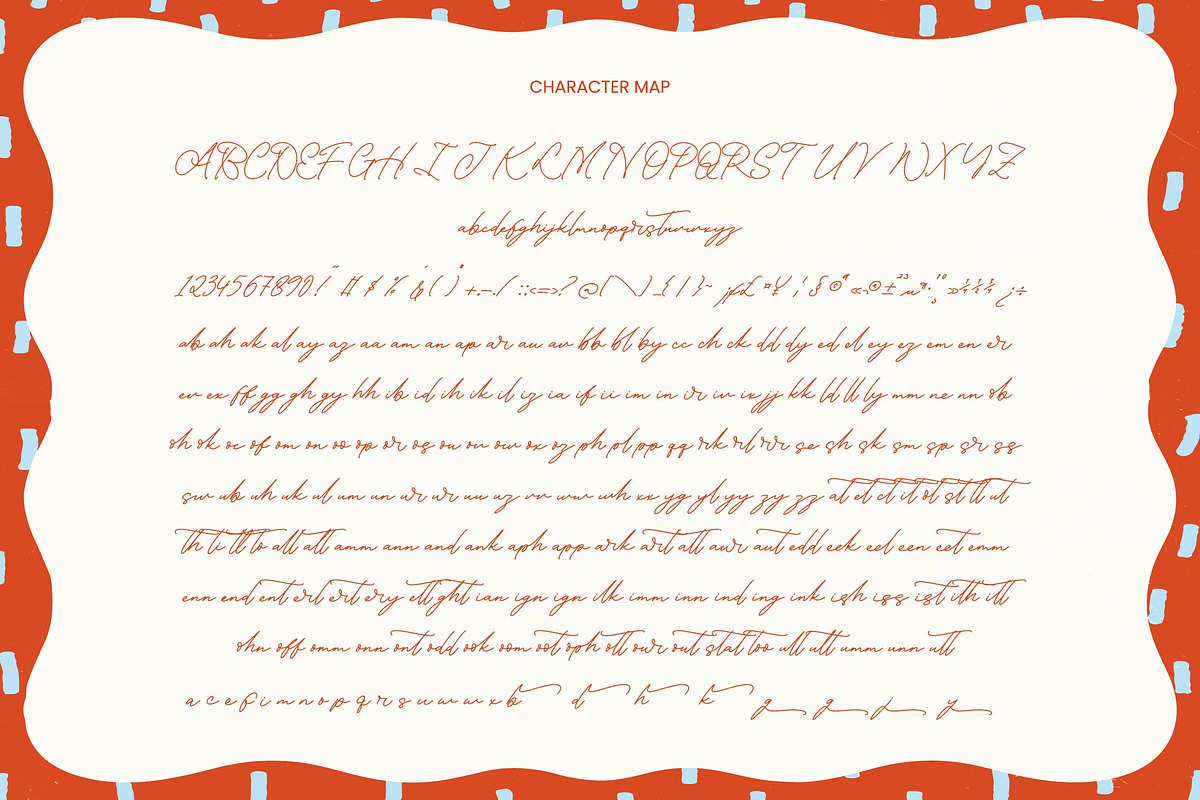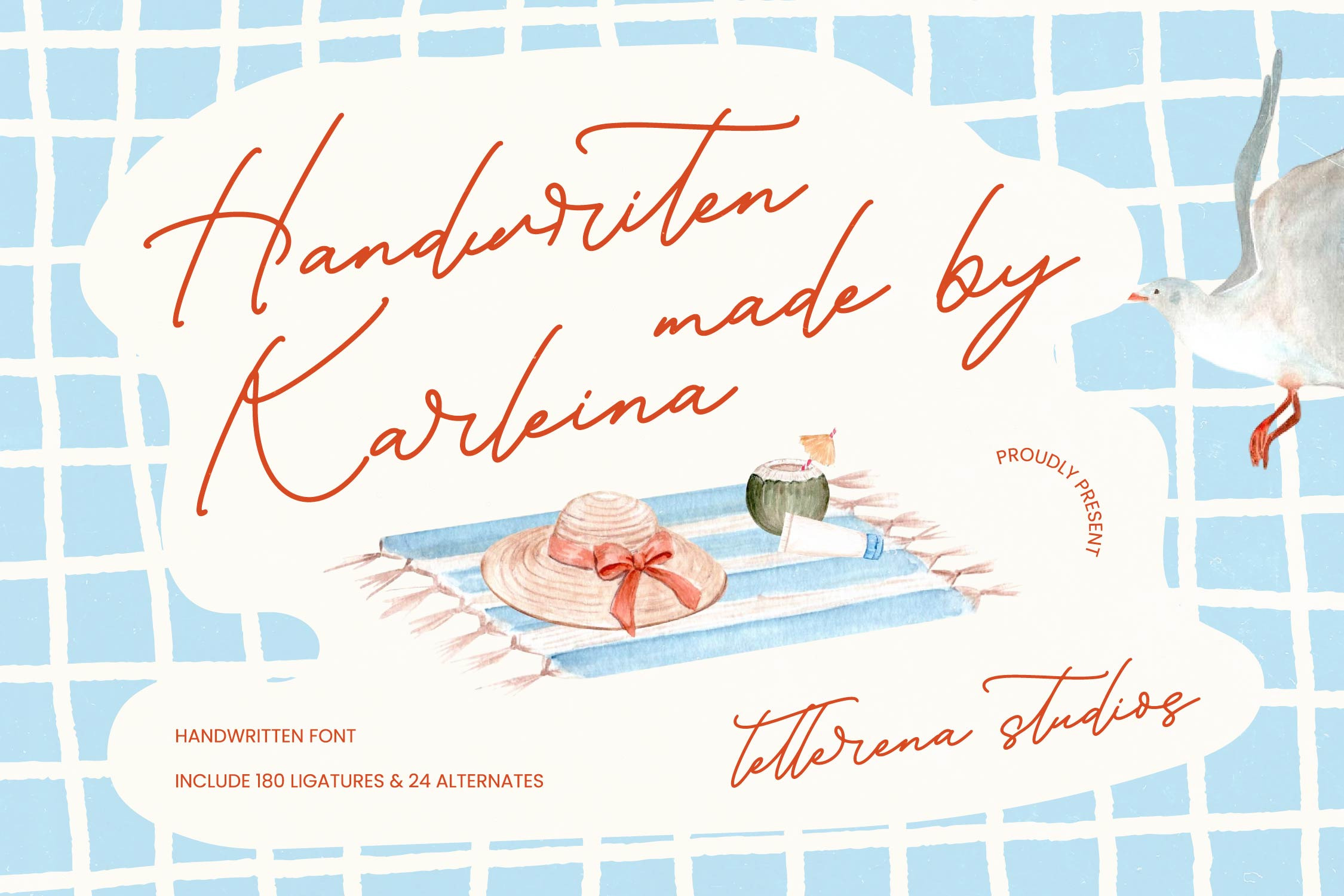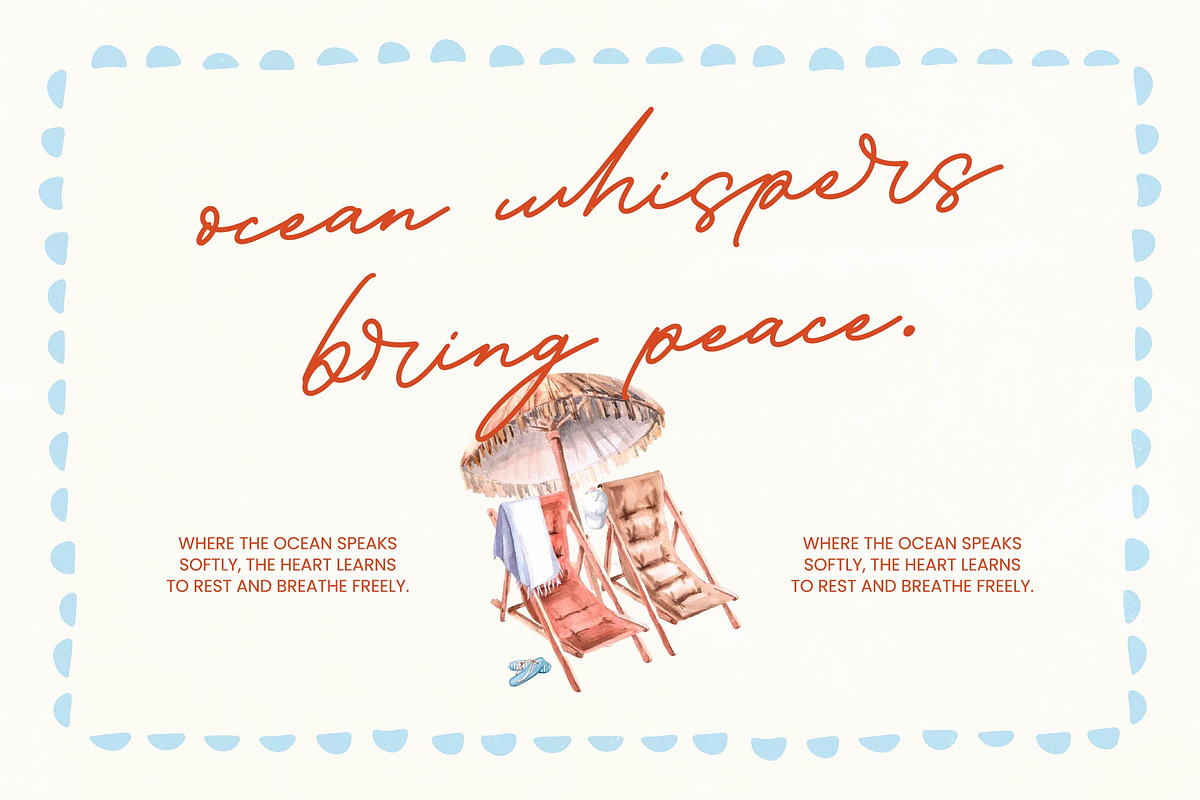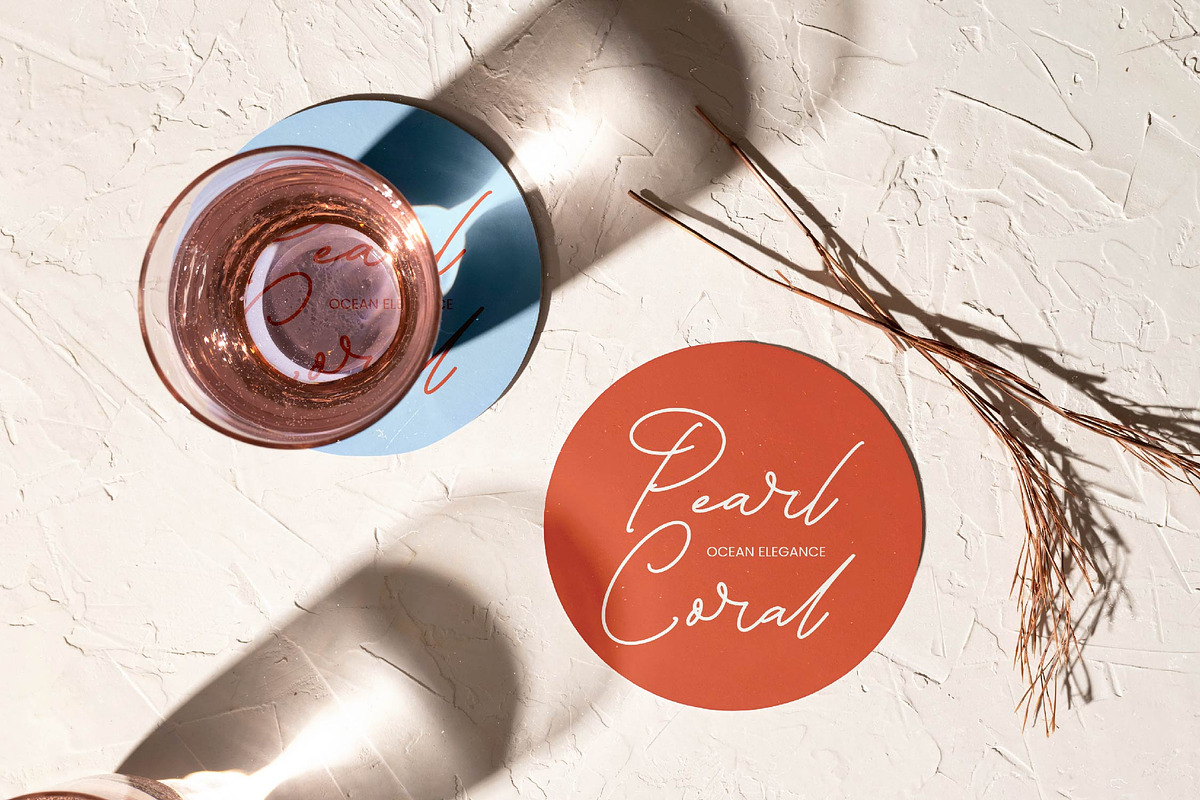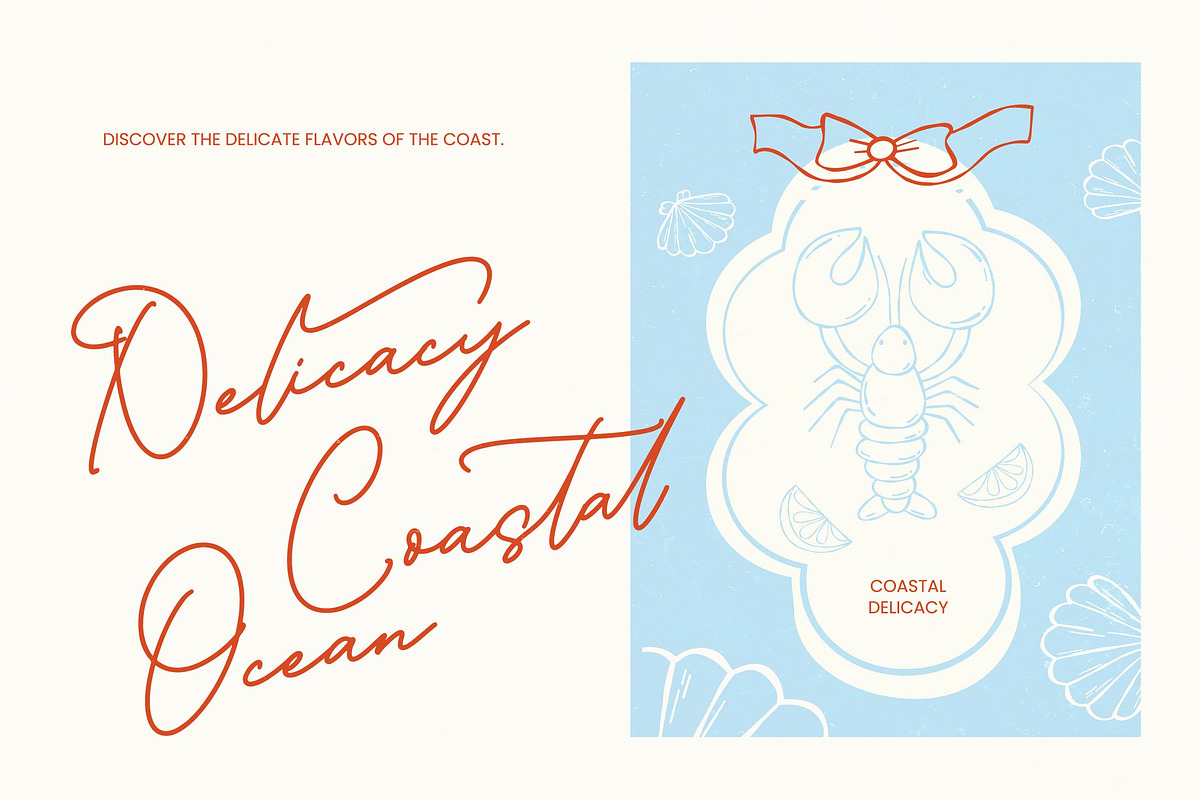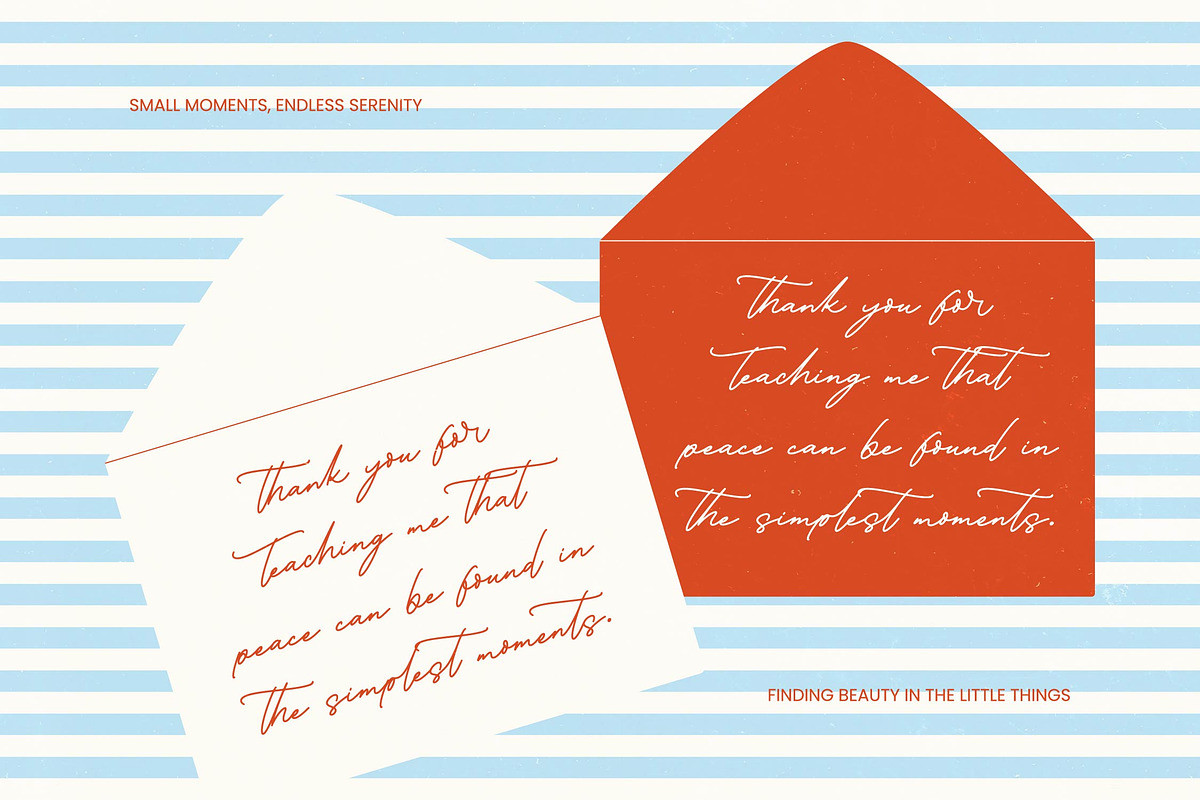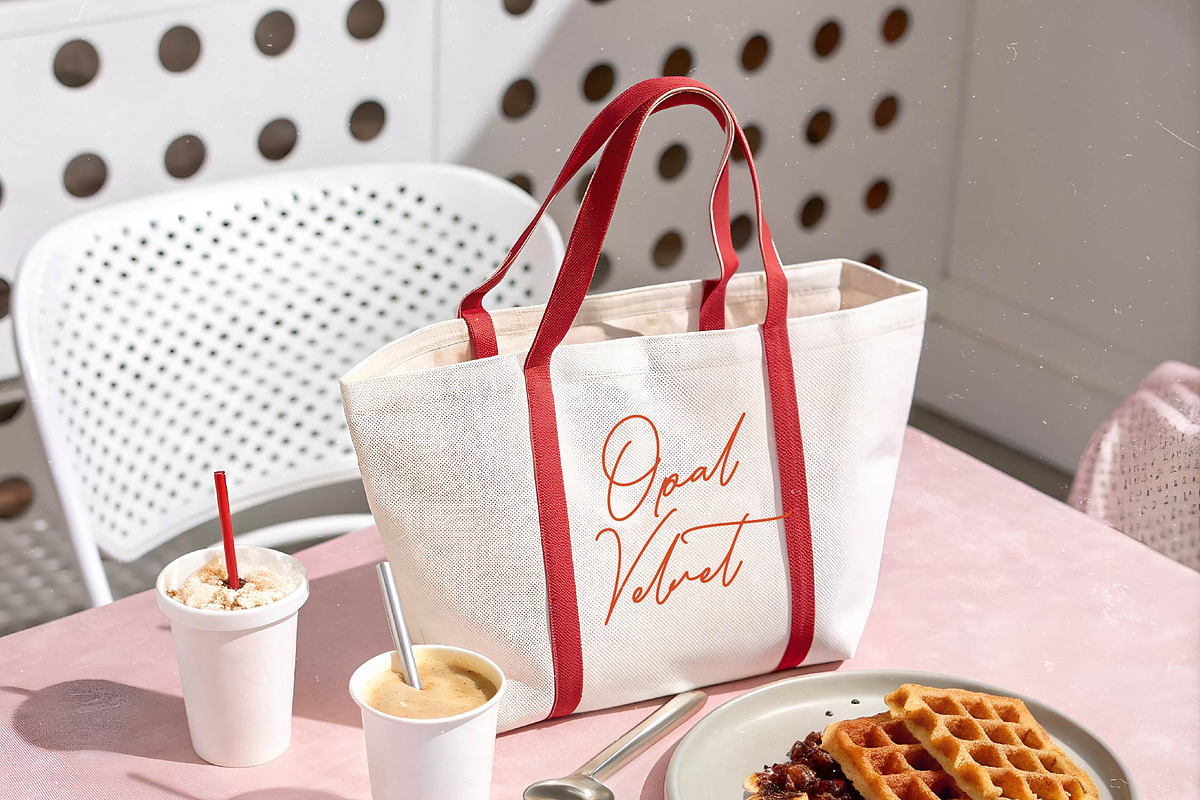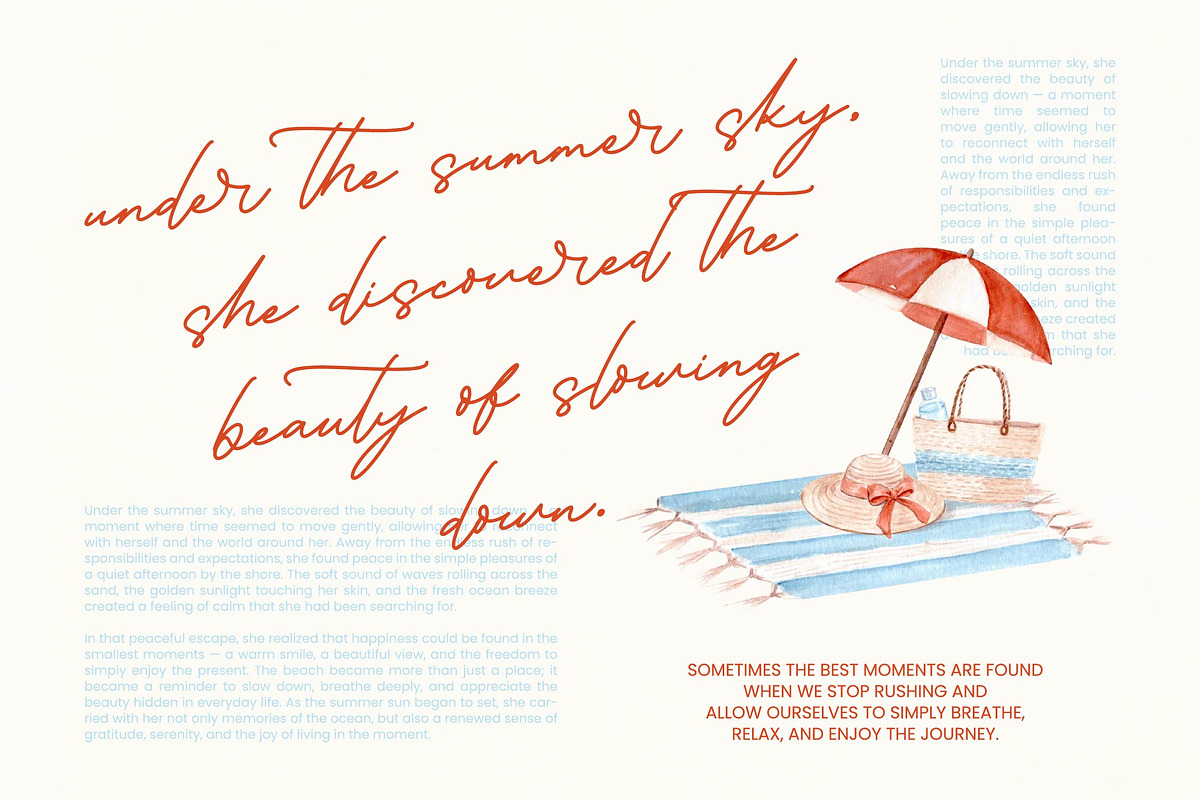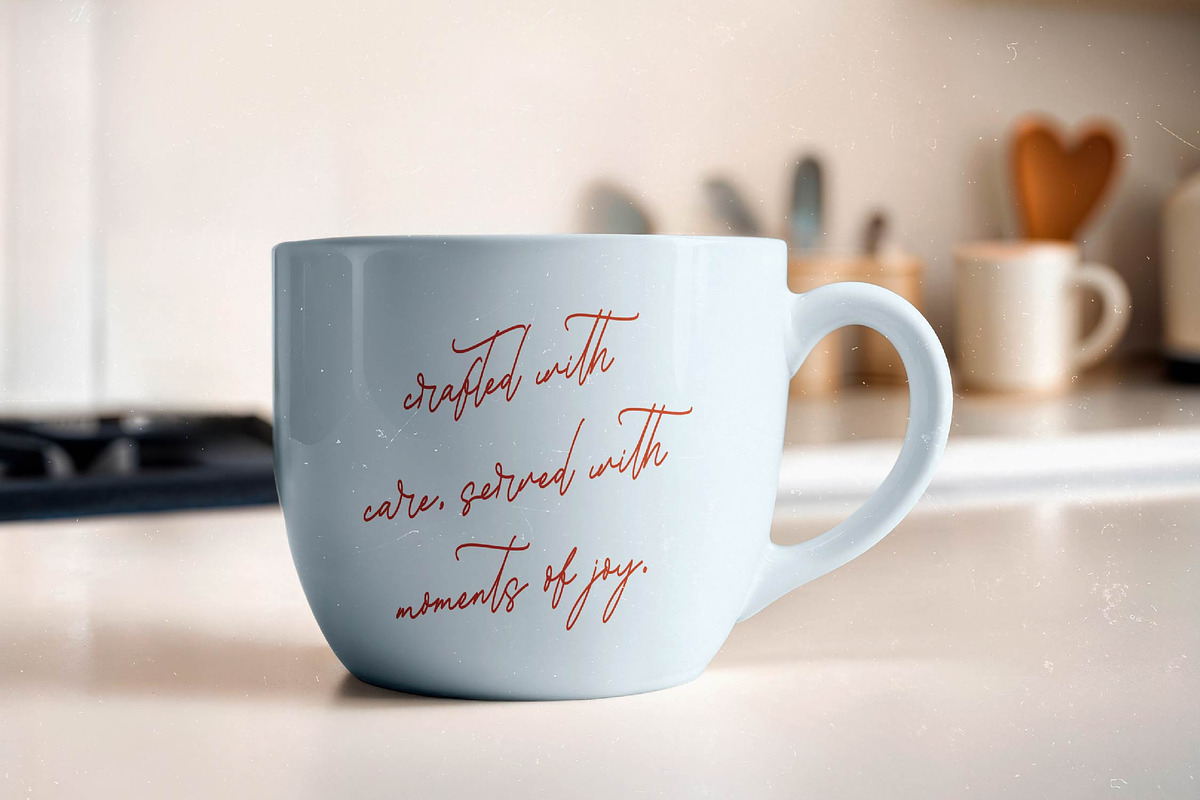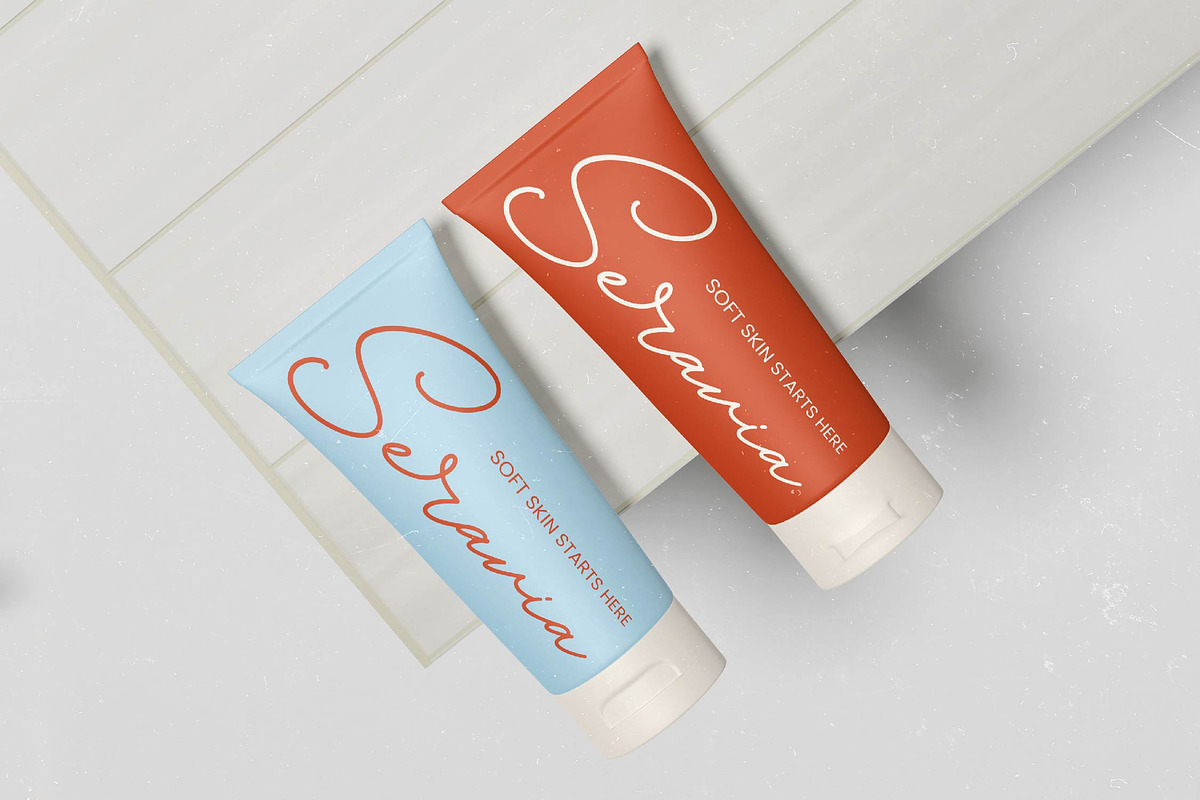
Handwritten Karleina Script Font
Handwritten Karleina - Handwritten Font
Elevate your creative vision with a touch of organic elegance. Handwritten Karleina - Handwritten Font is a masterclass in authentic script design, offering a fluid and natural aesthetic that mimics genuine penmanship. Its graceful strokes and effortless flow provide a sophisticated yet approachable character, perfect for designers looking to infuse their work with a personalized touch. By balancing artistic flair with high legibility, this typeface ensures your message remains clear while radiating a warm, hand-crafted charm.
Unleash limitless creative potential with a comprehensive set of professional features. This premium typeface includes over 180 ligatures and 24 alternates, allowing for unique letter combinations that maintain a custom-lettered feel. With its extensive multilingual support, Handwritten Karleina - Handwritten Font adapts seamlessly across global markets, making it incredibly versatile for international projects. This robust character set ensures that your branding remains consistent and impactful, regardless of the linguistic requirements or the scale of the global campaign.
Discover the perfect typographic partner for high-end design and commercial excellence. Handwritten Karleina - Handwritten Font is the ideal choice for luxury branding, wedding invitations, and boutique packaging where a sense of exclusivity is paramount. It is also perfect for social media graphics, editorial layouts, and lifestyle photography overlays that require a chic, modern vibe. Whether used for logo design or high-impact advertising, this font delivers a polished and premium visual identity that resonates with discerning audiences.
Transform your digital and print assets into captivating works of art today. Investing in Handwritten Karleina - Handwritten Font means choosing a versatile design tool that transcends seasonal trends with its timeless appeal. Its unique personality adds depth to any composition, ensuring your brand stands out in a crowded marketplace. Experience the blend of sophistication and spontaneity that only Handwritten Karleina - Handwritten Font can provide, and take your creative projects to a professional new level of distinction.